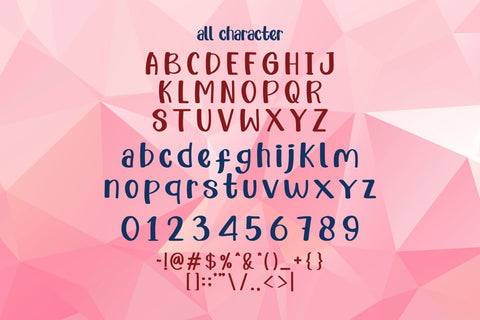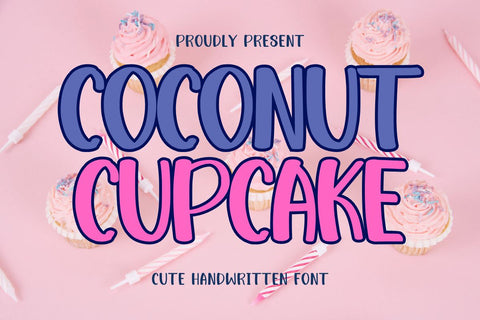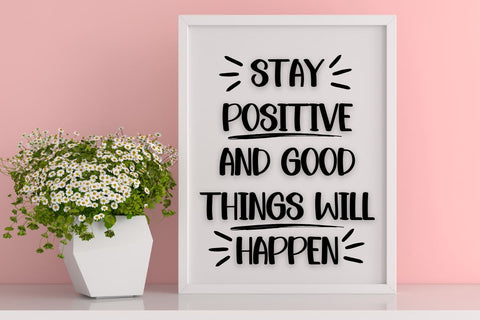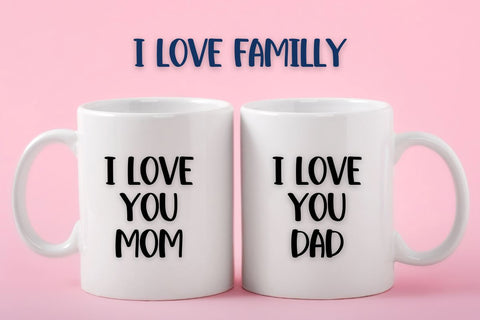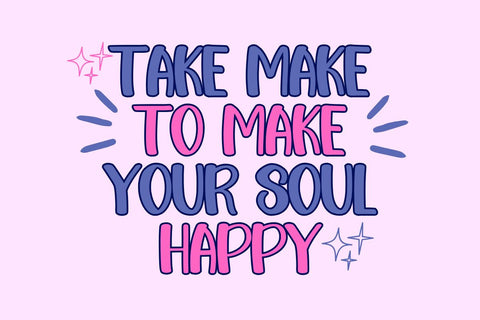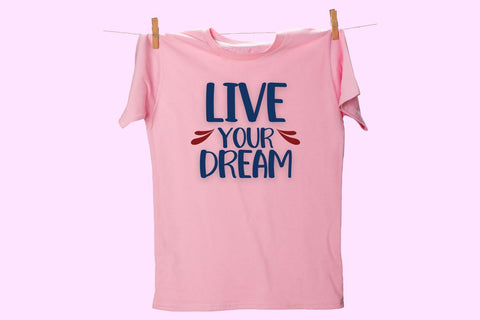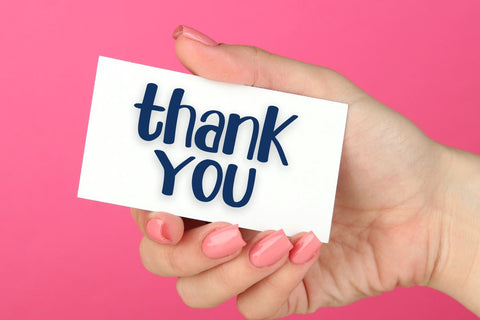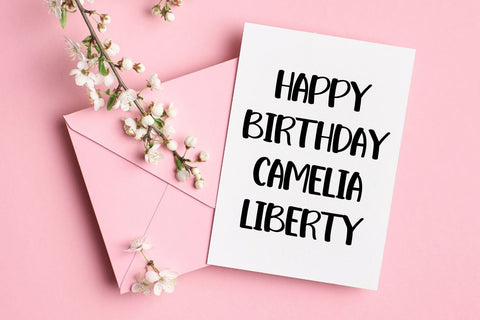
Coconut Capcakes - Cute Handwritten Font
Hi, Introducing Coconut Capcakes - Cute Handwritten Font
A Cute Handwritten font. This font with a cute and fun style is cool for mugs, t-shirts, posters, quotes, gretting cards, tote bags, packaging, pillows, etc.